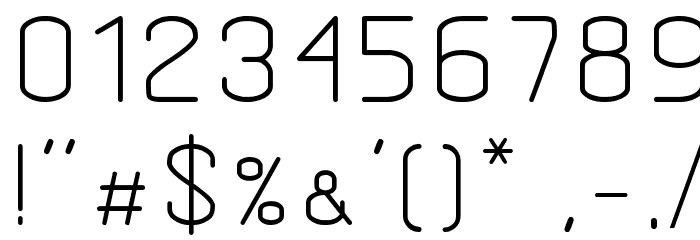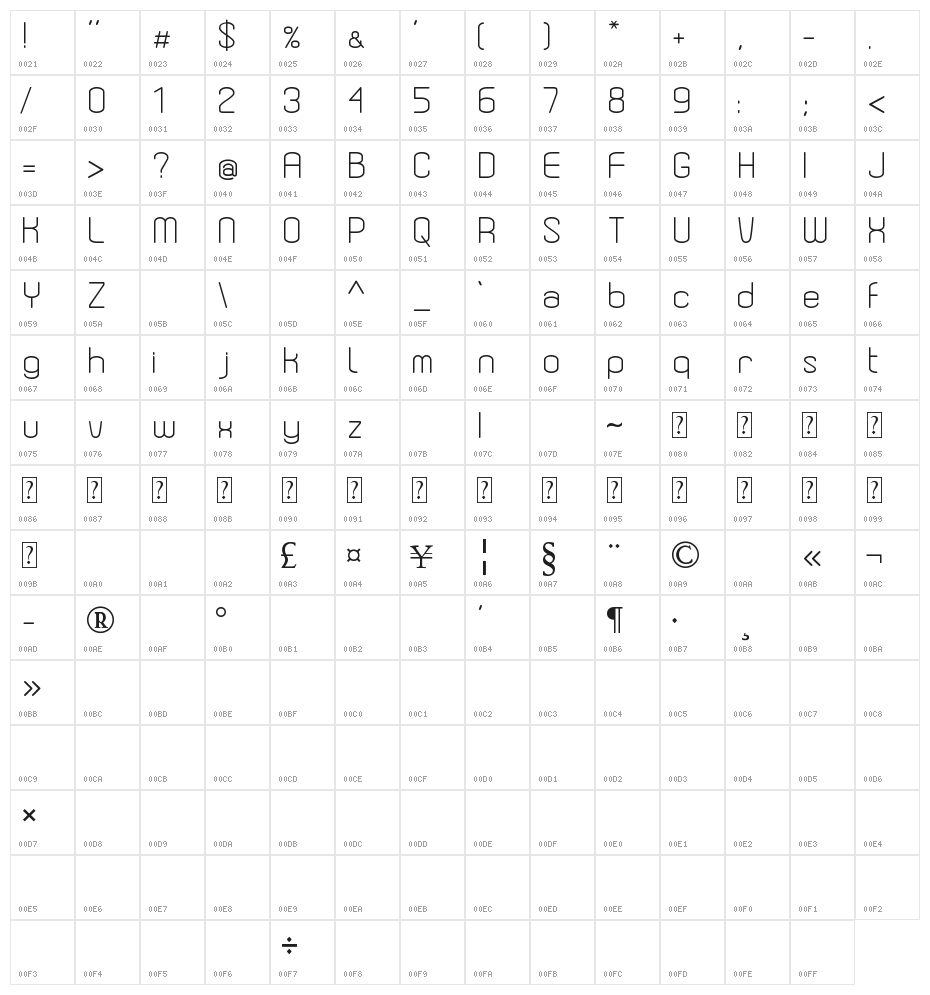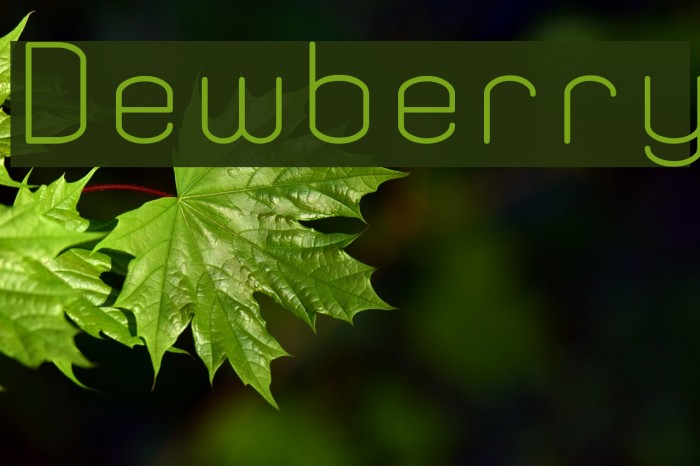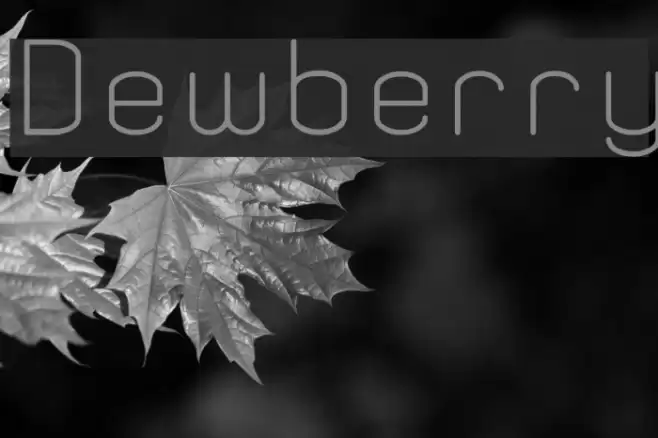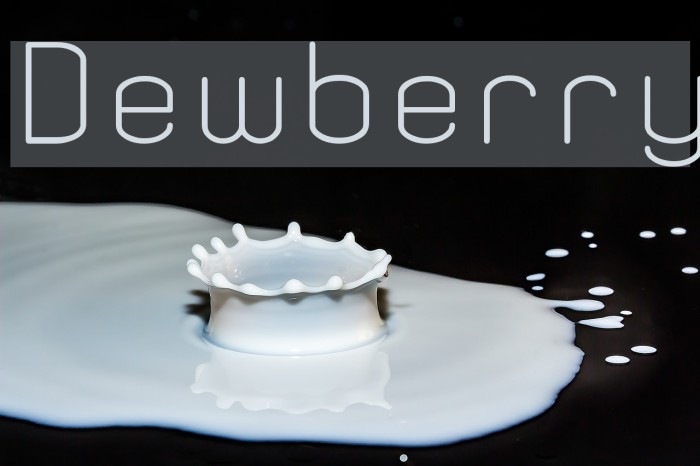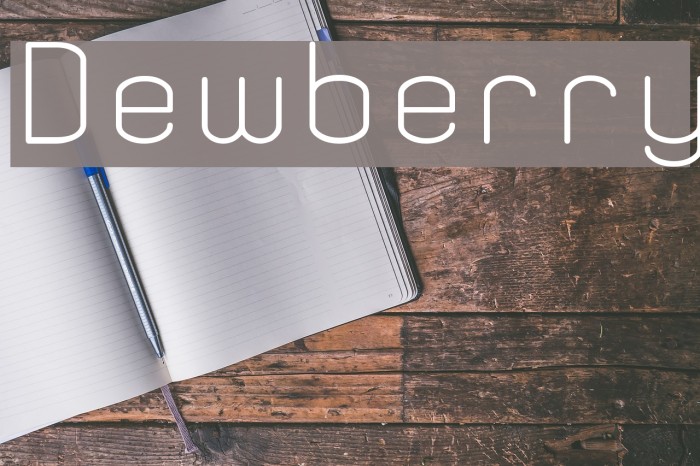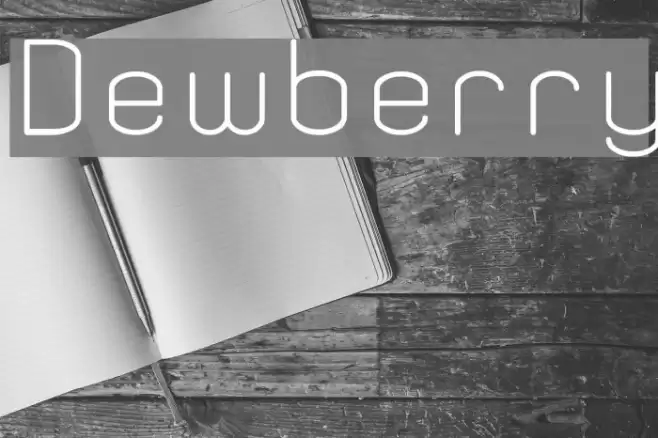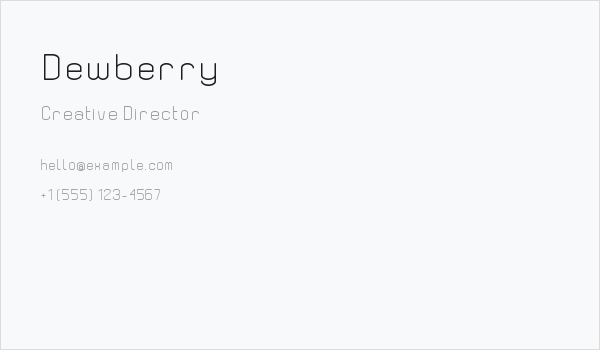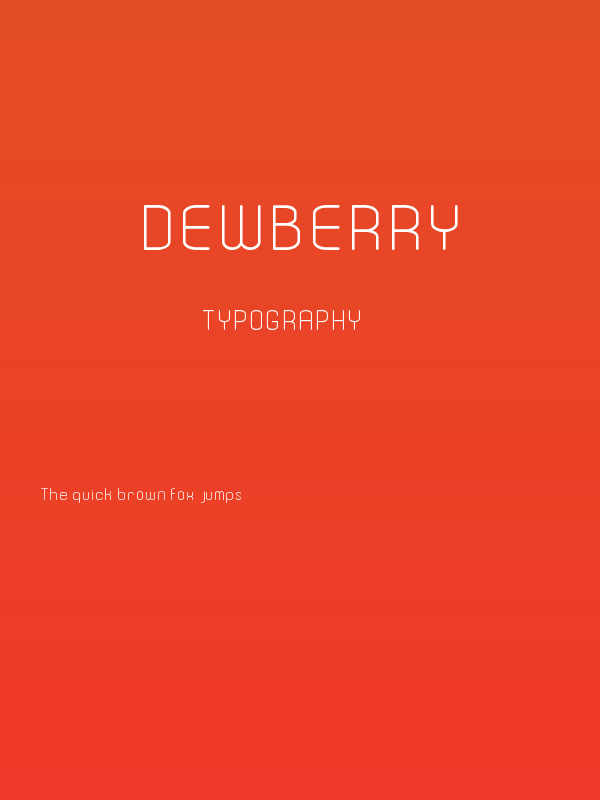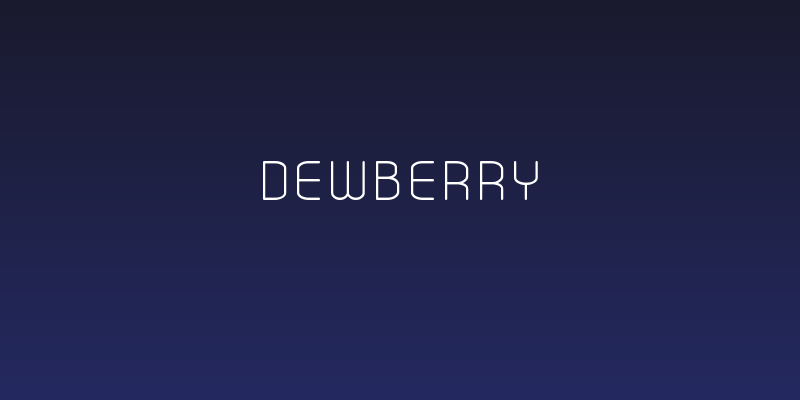
Dewberry Font
Dewberry Description
This font features a clean, modern aesthetic with rounded edges and a geometric structure. The characters are evenly spaced, providing a balanced and harmonious appearance. The uppercase letters are slightly taller than the lowercase, maintaining a consistent line weight throughout. Numbers and special characters follow the same design principles, ensuring uniformity across all glyphs. The overall look is sleek and minimalist, making it suitable for contemporary design projects.
| Use Case | Headlines, Logos, User Interfaces |
| Proposed Projects | Ideal for tech branding, modern websites, app interfaces, and minimalist graphic designs. |